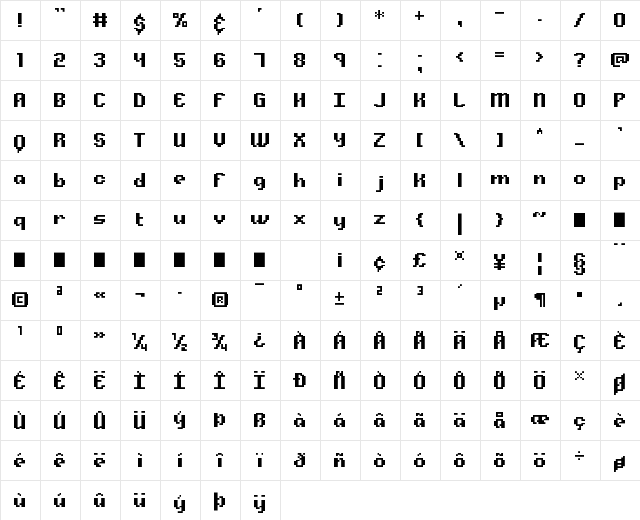
Alpha Beta BRK Regular Font Preview
Alpha Beta BRK Regular
Alpha Beta BRK Regular Font Details
Design Context for Alpha Beta BRK Typeface
Alpha Beta BRK is a composed and adaptable typeface that performs quietly and consistently across a wide range of design contexts.